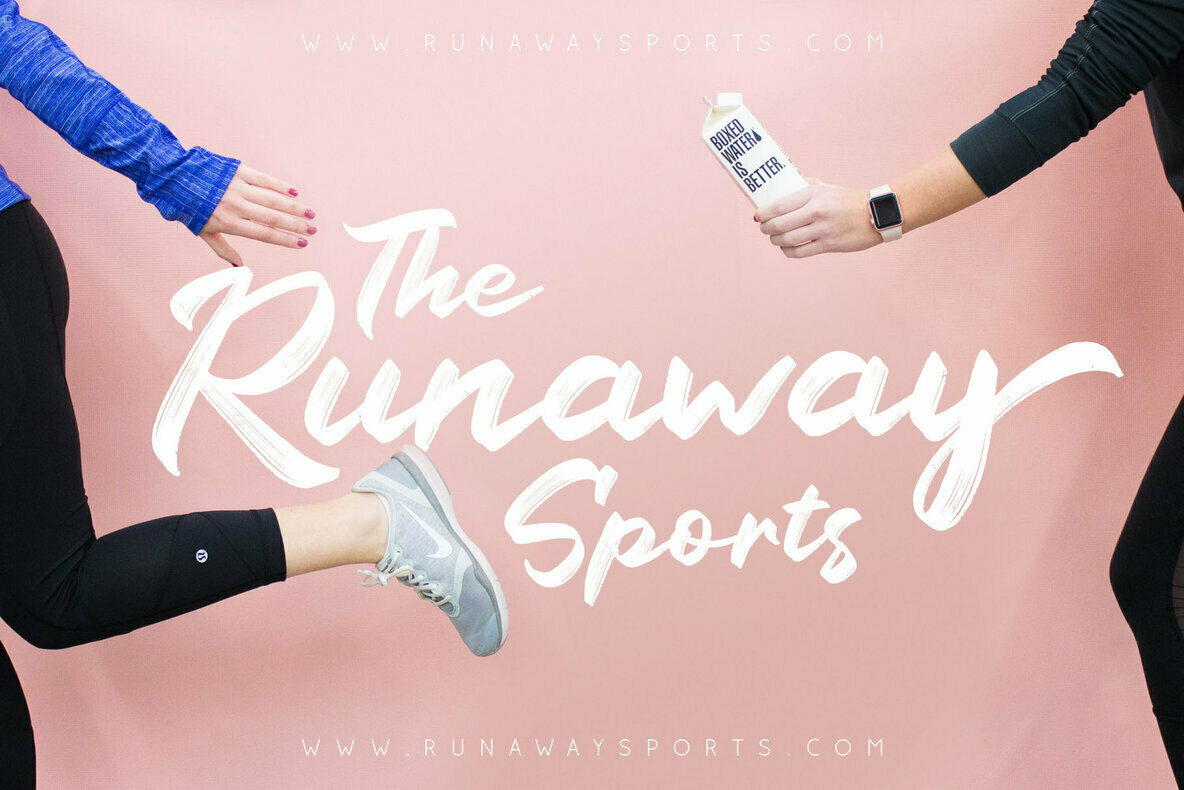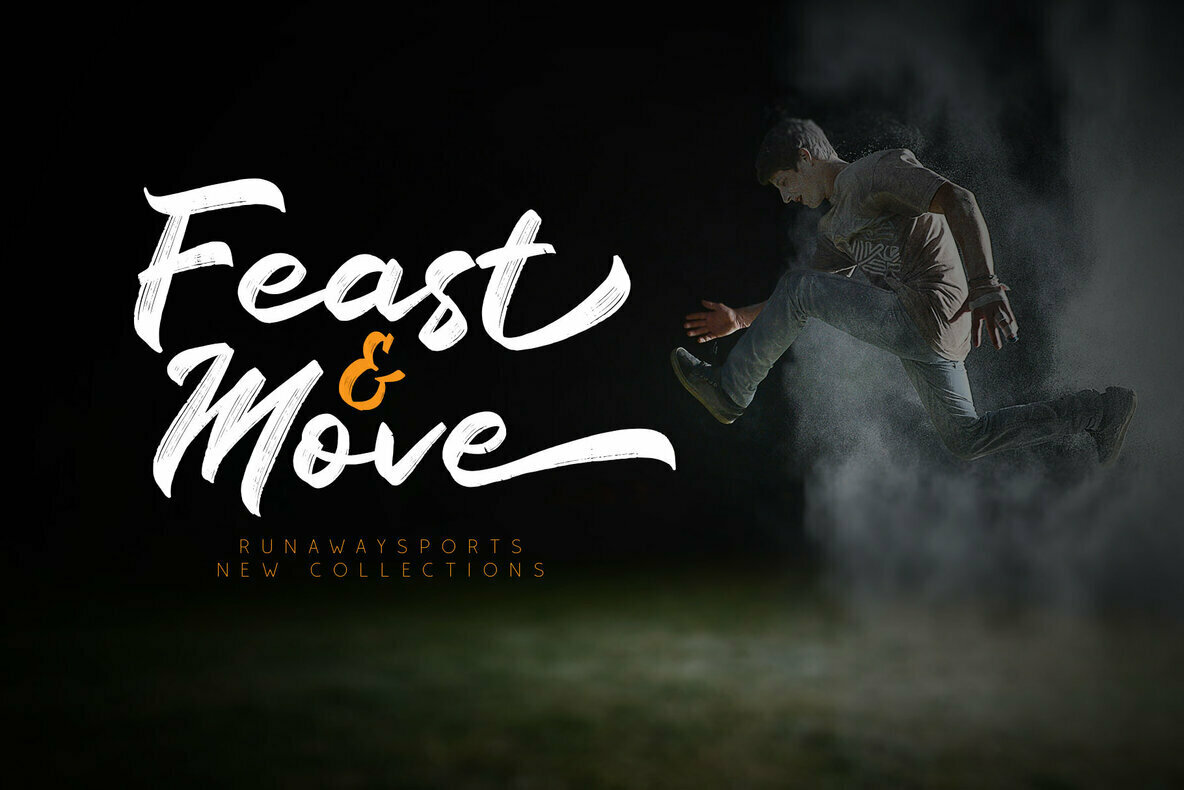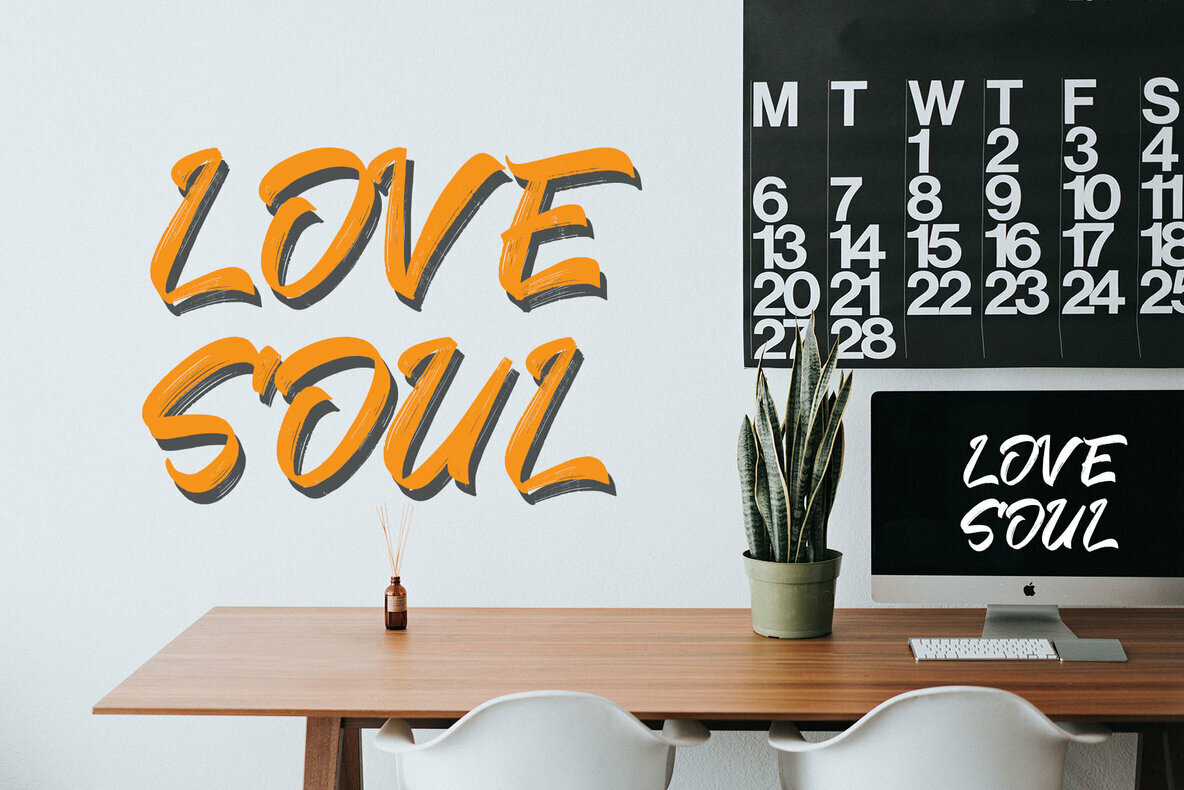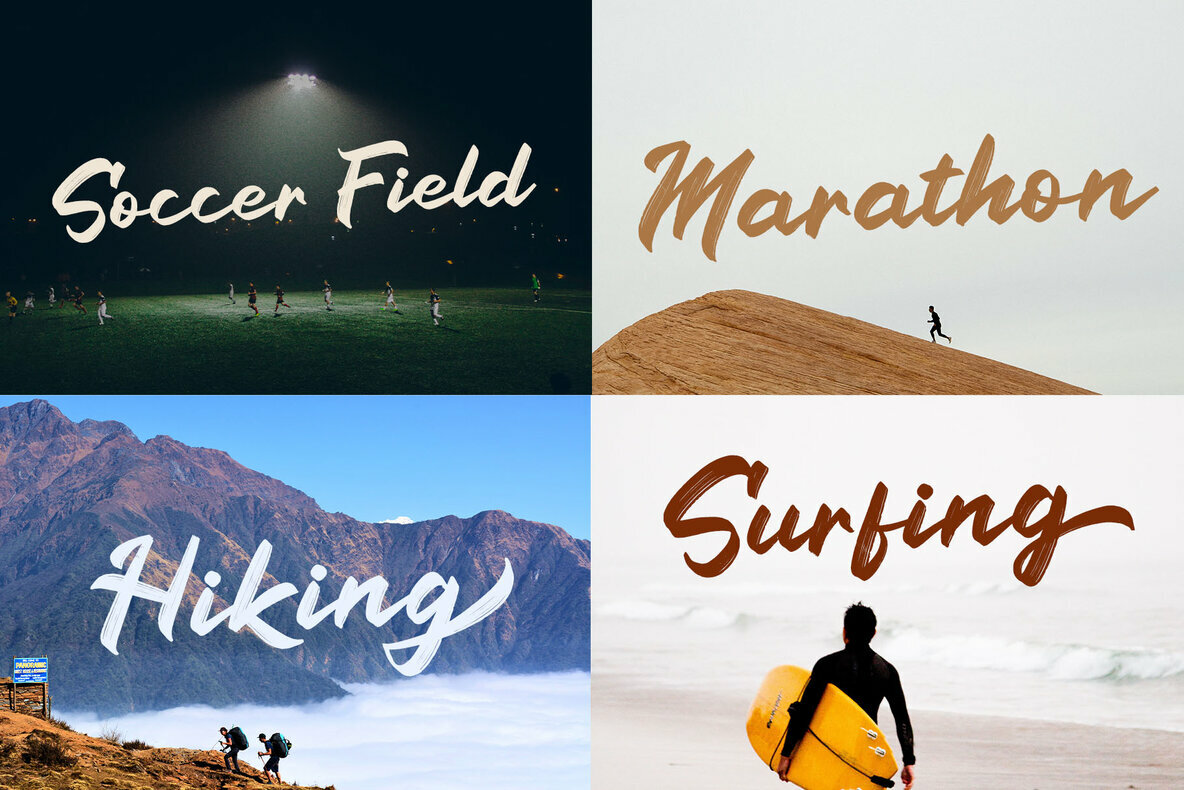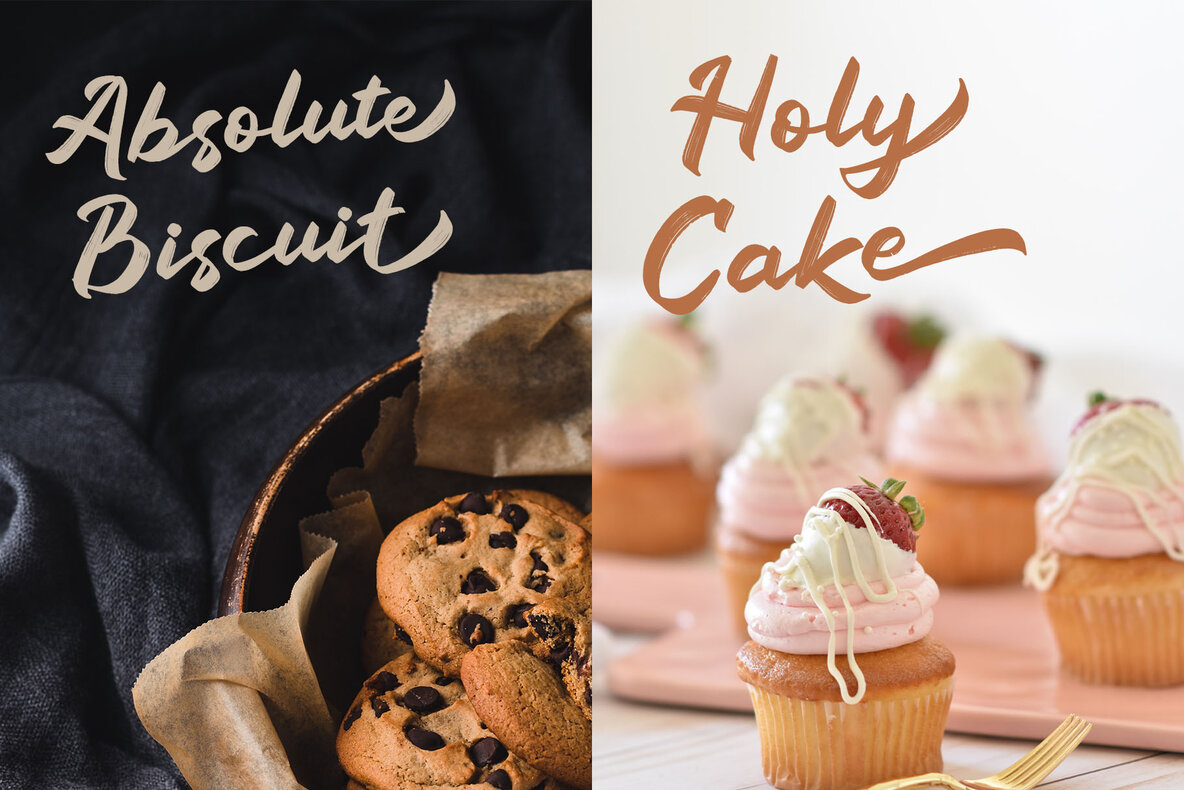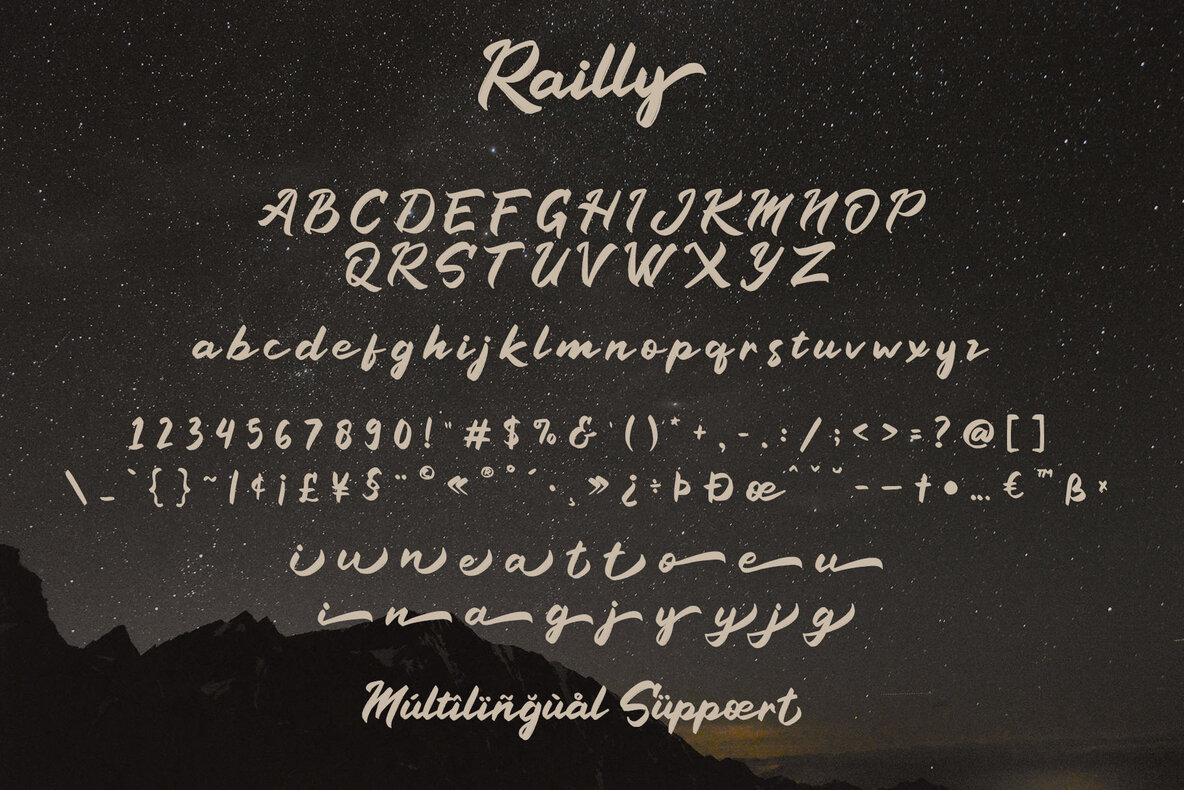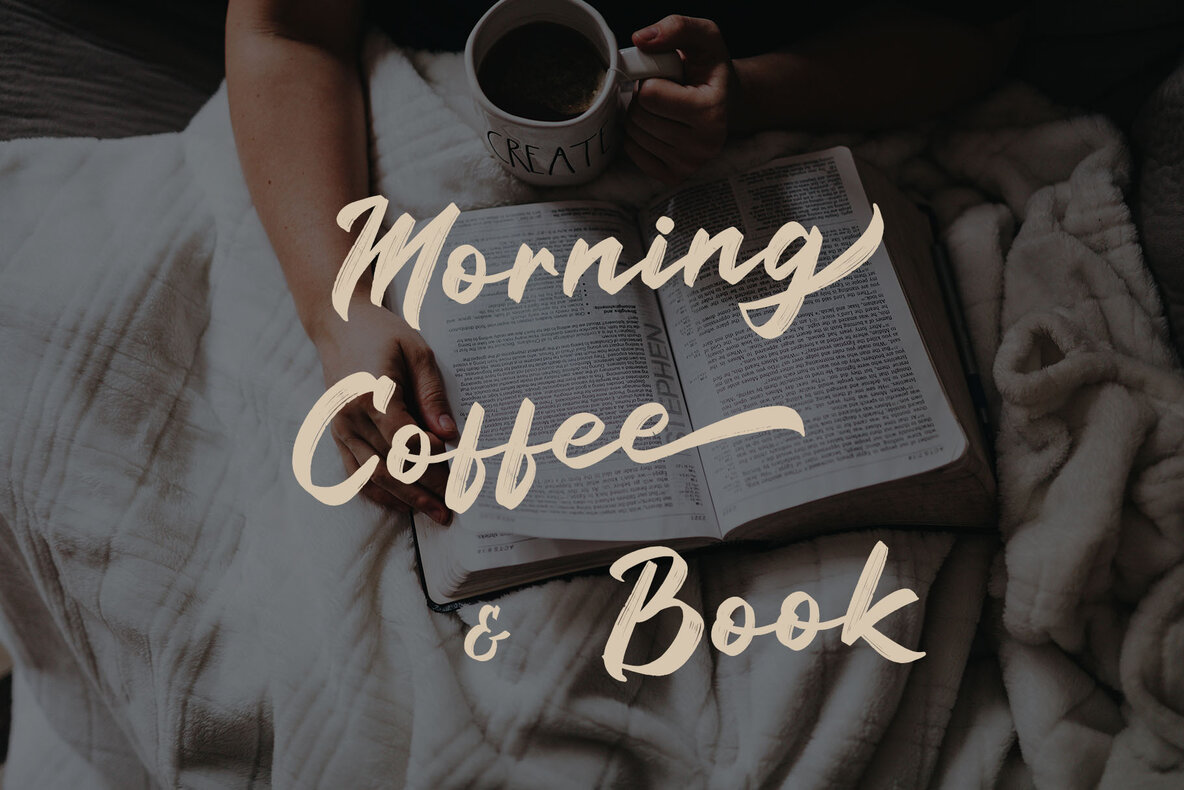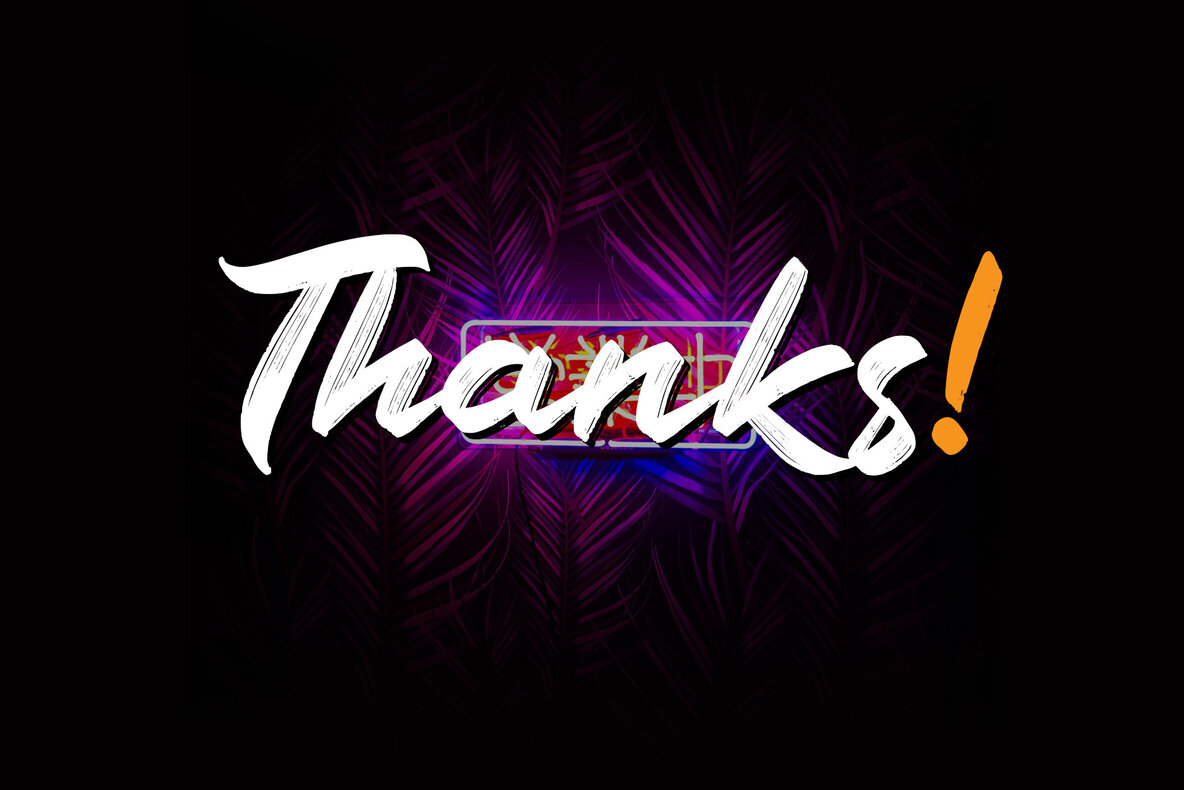
Railly Font
Railly Regular
Railly captures the authentic feel of handwritten lettering, delivering a brush script font that's steeped in elegance and personal expression. This versatile typeface is an excellent choice for brands in the fashion industry, e-commerce platforms, and wedding boutiques—any entity looking to exude an upscale and chic image. Railly seamlessly enhances design needs, making it a perfect fit for logos, greeting cards, quotes, and much more.Railly: A Handwritten Script Font with Modern Flair
Railly stands as a superb choice for a variety of creative endeavors, from blog headers to book titles, enriching any artistic or professional project with its trendy and appealing script style.